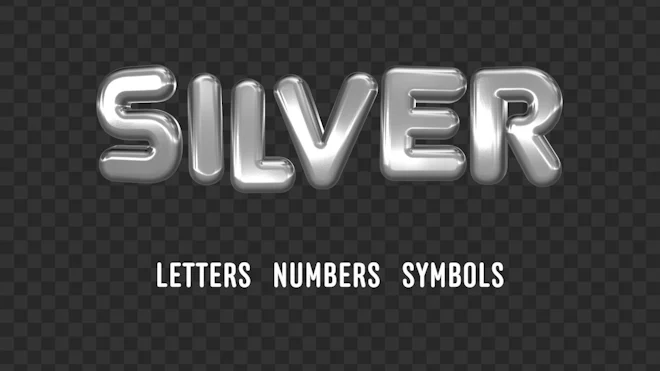
This stock motion graphics video pack includes 48 clips of floating silver balloon letters, numbers and symbols on a transparent alpha channel in a seamless loop.